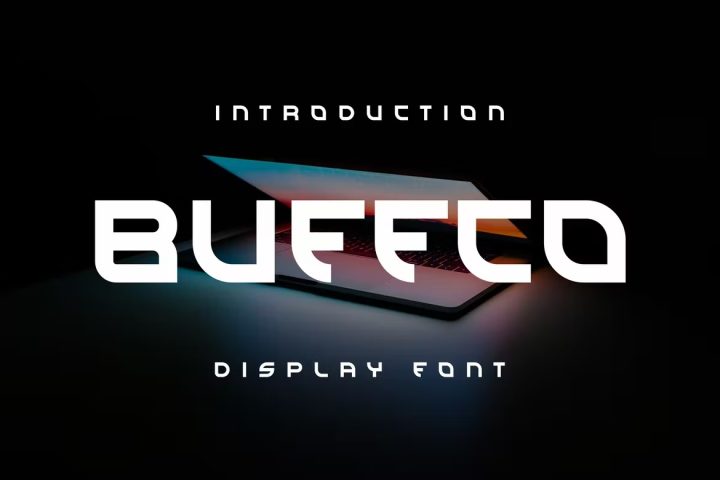
Buffco Font
Buffco Font is modern font with a sans serif style. Perfectly suited on print/screen; it can be used freely for logotypes, e-books and mobile applications and is especially food for headlines, banners, posters, web-sites, magazines, etc.